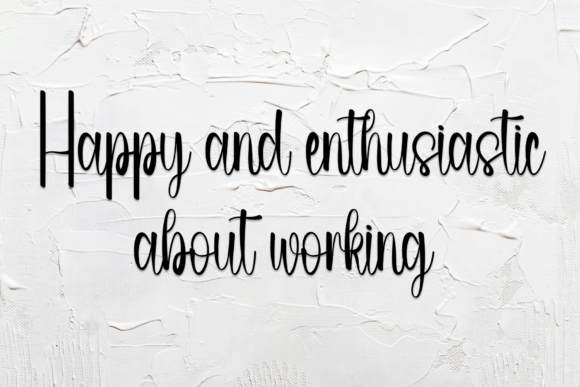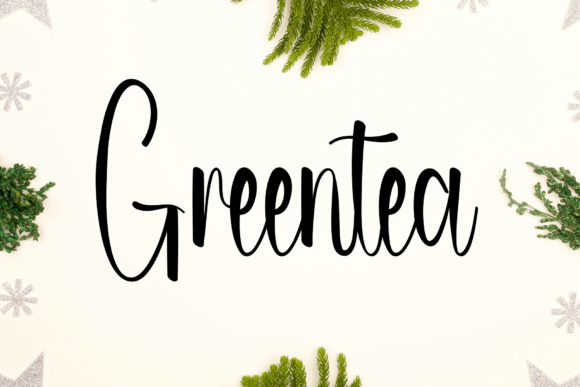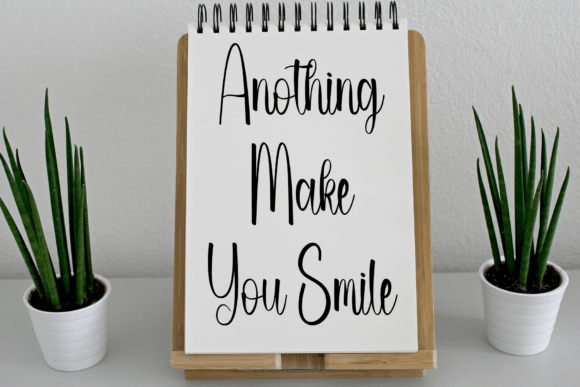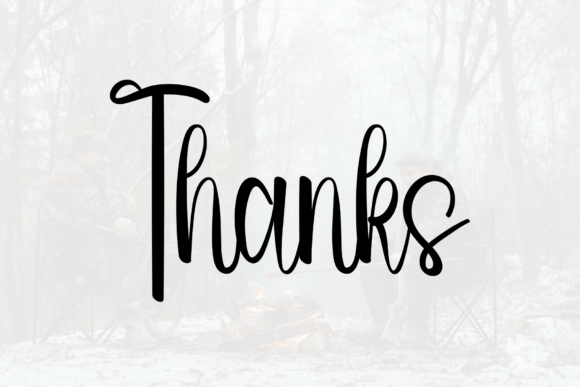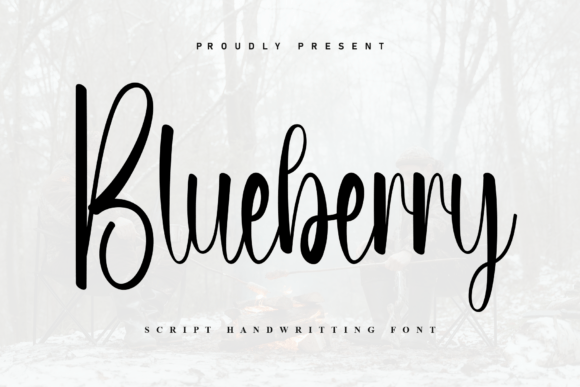
Introducing Blueberry Font: The Perfect Handwritten Style for Your Designs
Are you looking for a font that adds a touch of elegance and sophistication to your designs while still maintaining a casual and relaxed feel? Look no further than Blueberry Font! This beautiful handwritten font is designed to resemble writing with a marker, giving it a unique and sporty vibe that’s perfect for a wide range of design applications.
What is Blueberry Font?
Blueberry Font is a carefully crafted handwritten font that is designed to bring a sense of luxury and elegance to your designs. With its smooth, flowing lines and relaxed feel, it’s perfect for creating stunning branding, logos, wedding supplies, greeting cards, fashion lookbooks, marketing promotions, and more.
Key Features of Blueberry Font
- Handwritten style: Blueberry Font is a true handwritten font, designed to look like it was written with a marker. This gives it a unique, personal touch that’s perfect for adding a human element to your designs.
- Relaxed and sporty feel: Unlike some other elegant fonts, Blueberry Font has a relaxed and sporty vibe that’s perfect for creating designs that need to feel casual and approachable.
- Luxurious and elegant: Despite its casual feel, Blueberry Font is still a luxurious and elegant font that’s perfect for high-end designs. It’s ideal for creating designs that need to feel sophisticated and refined.
- Versatile: Blueberry Font is an incredibly versatile font that can be used for a wide range of design applications, from branding and logos to wedding supplies and greeting cards.
Uses for Blueberry Font
- Branding and logos: Blueberry Font is perfect for creating unique and memorable brand identities. Its elegant, sophisticated feel makes it ideal for luxury brands, while its relaxed vibe makes it suitable for more casual brands.
- Wedding supplies: Create beautiful wedding stationery, including invitations, programs, and place cards, with Blueberry Font. Its elegant feel makes it perfect for formal weddings, while its relaxed vibe makes it suitable for more casual affairs.
- Greeting cards: Add a personal touch to your greeting cards with Blueberry Font. Its handwritten style makes it perfect for creating unique and heartfelt cards for special occasions.
- Fashion lookbooks: Blueberry Font is perfect for creating stylish and sophisticated fashion lookbooks. Its elegant feel makes it ideal for high-end fashion brands, while its relaxed vibe makes it suitable for more casual fashion brands.
- Marketing promotions: Use Blueberry Font to create eye-catching marketing promotions, including flyers, brochures, and posters. Its elegant feel makes it perfect for promoting luxury products or services, while its relaxed vibe makes it suitable for promoting more casual products or services.
Why Choose Blueberry Font?
- Unique and memorable: Blueberry Font is a truly unique and memorable font that’s sure to make your designs stand out from the crowd.
- Elegant and sophisticated: Despite its casual feel, Blueberry Font is still an elegant and sophisticated font that’s perfect for high-end designs.
- Versatile: Blueberry Font is an incredibly versatile font that can be used for a wide range of design applications.